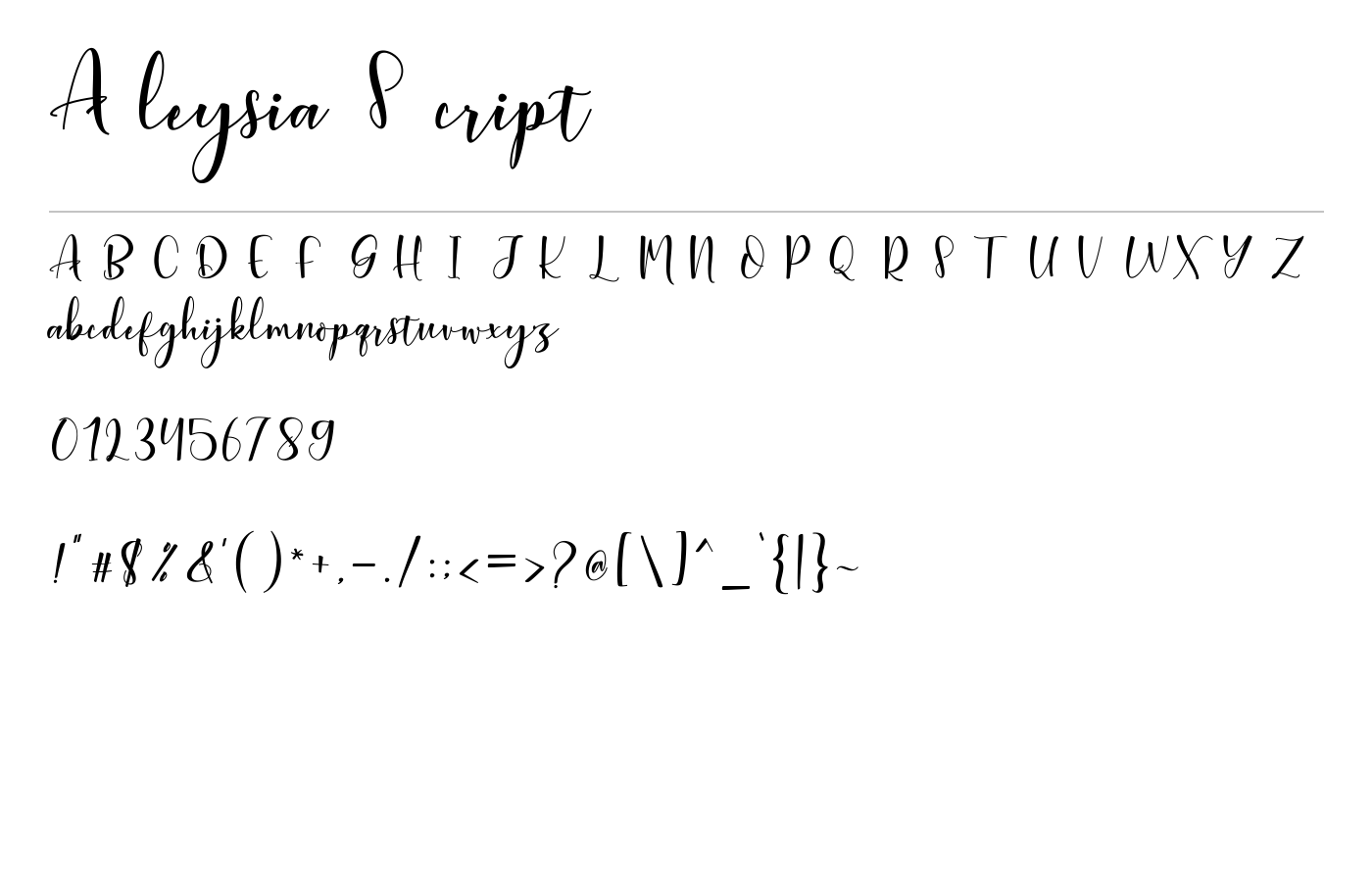
Aleysia Script is a delicate and elegant handwritten script font featuring a mix of thin and slightly varied stroke weights that create a graceful, flowing rhythm. Its slender, upright letterforms with unique curls and loops convey a charming and personal touch, ideal for feminine branding, invitations, and stylish editorial designs. This font works beautifully for projects that seek a soft, romantic, and sophisticated feel without losing readability.
Aleysia Script Font
About Aleysia Script Font
| Font family | Aleysia Script Font |
| Designer | Fajri adi |